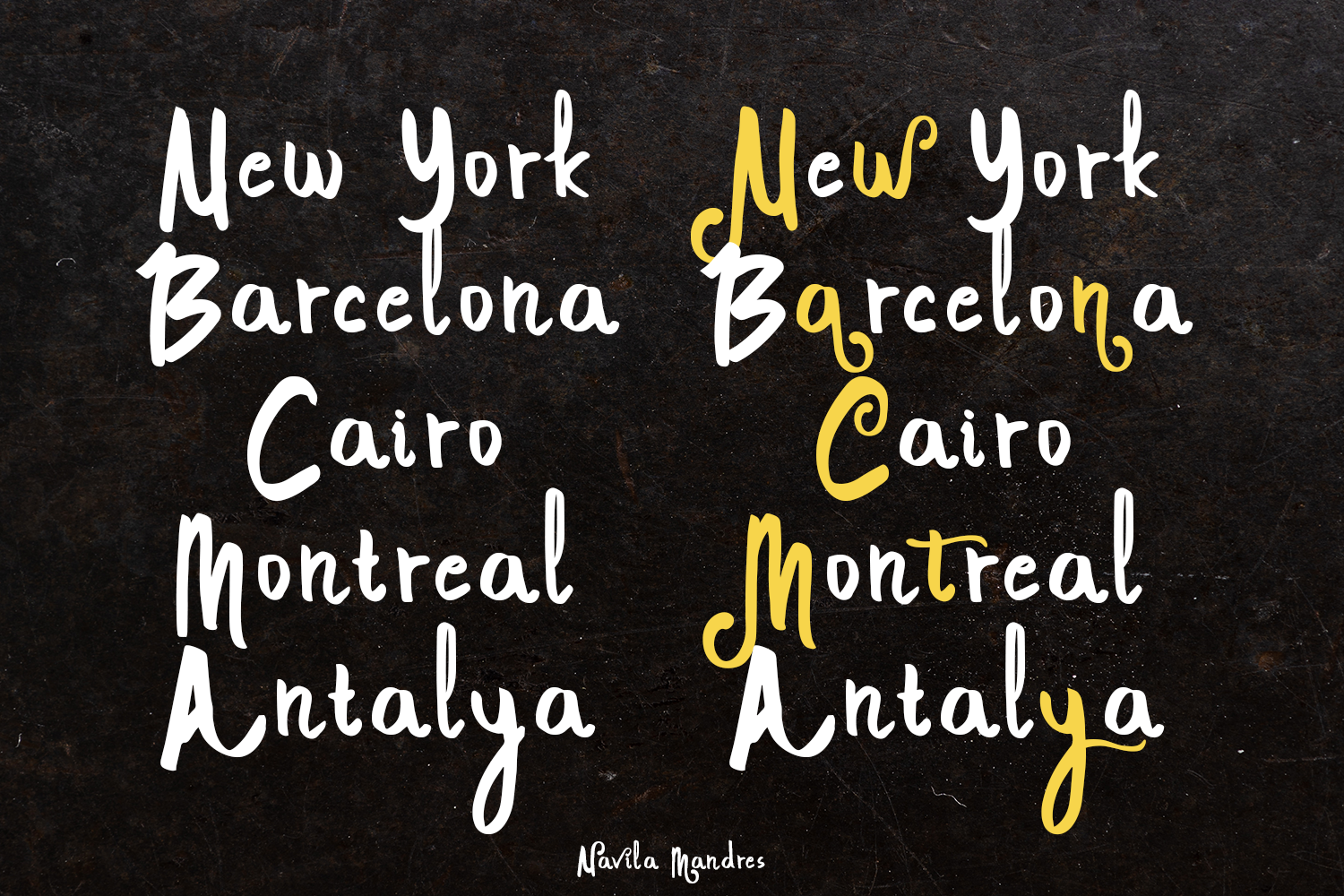
Introducing Navila Mandres is a realistic hand drawn font come with alternative and ligature and will be perfect for book, title branding, product packaging, invitation, quotes, label, poster, logo etc.
– Alternative
– Ligature